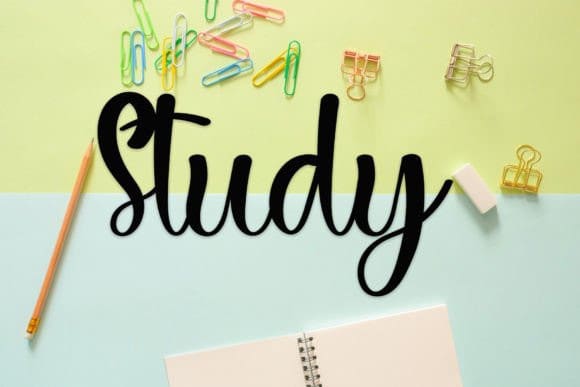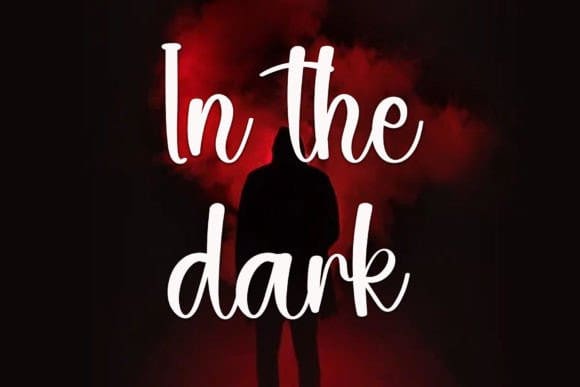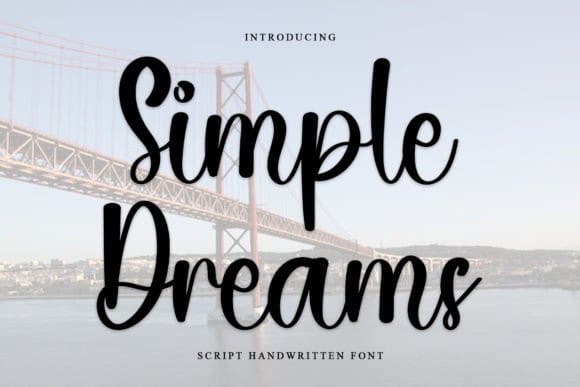
Simple Dreams Font
Simple Dreams Font is a delightful and enchanting typeface that captures the essence of the fall season. With its graceful letterforms and warm, earthy tones, this font brings a sense of coziness and nostalgia to your designs. Perfect for autumn-themed projects, seasonal greetings, and nature-inspired branding, Simple Dreams Font adds a touch of whimsy and charm, evoking the beauty of falling leaves and crisp air.